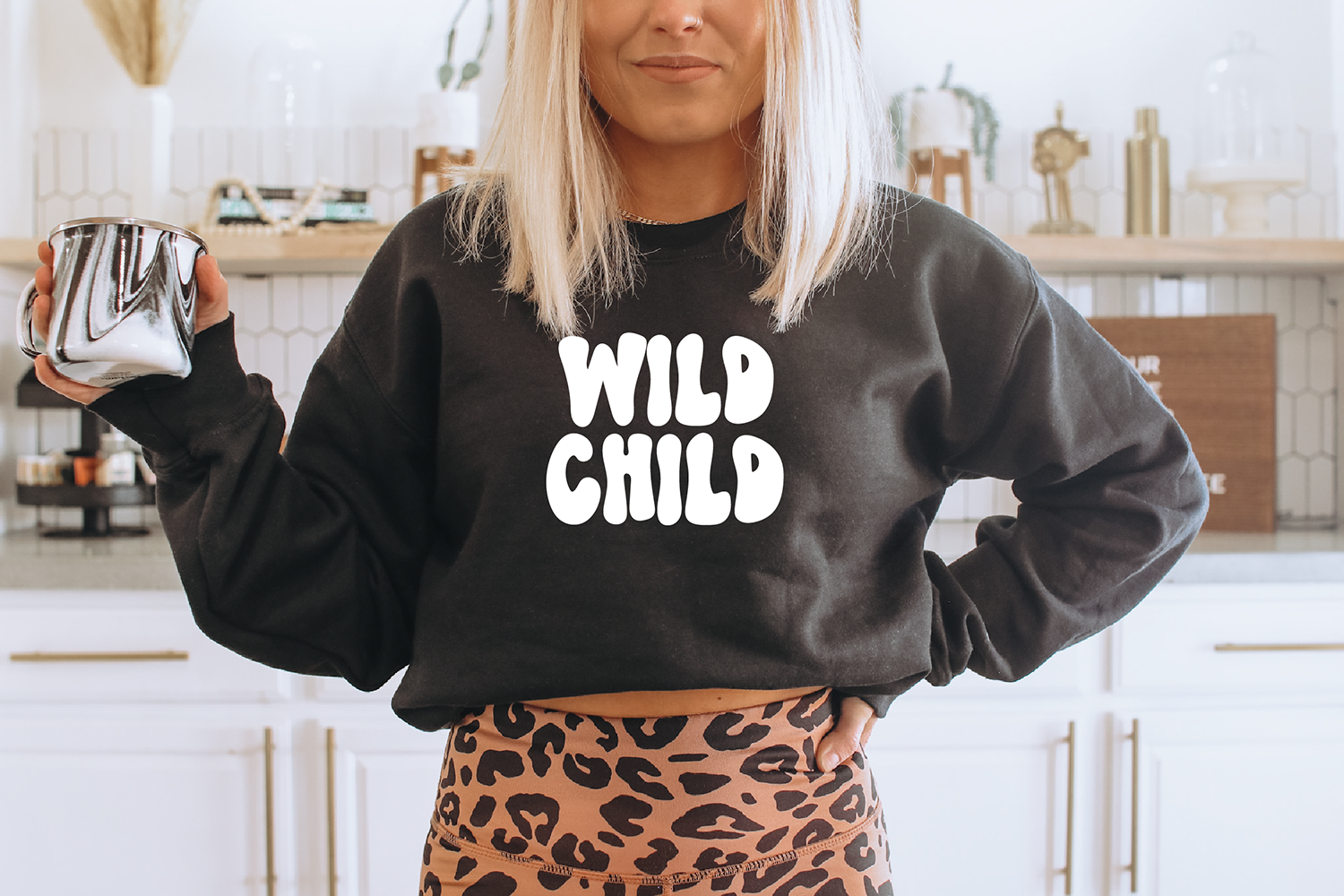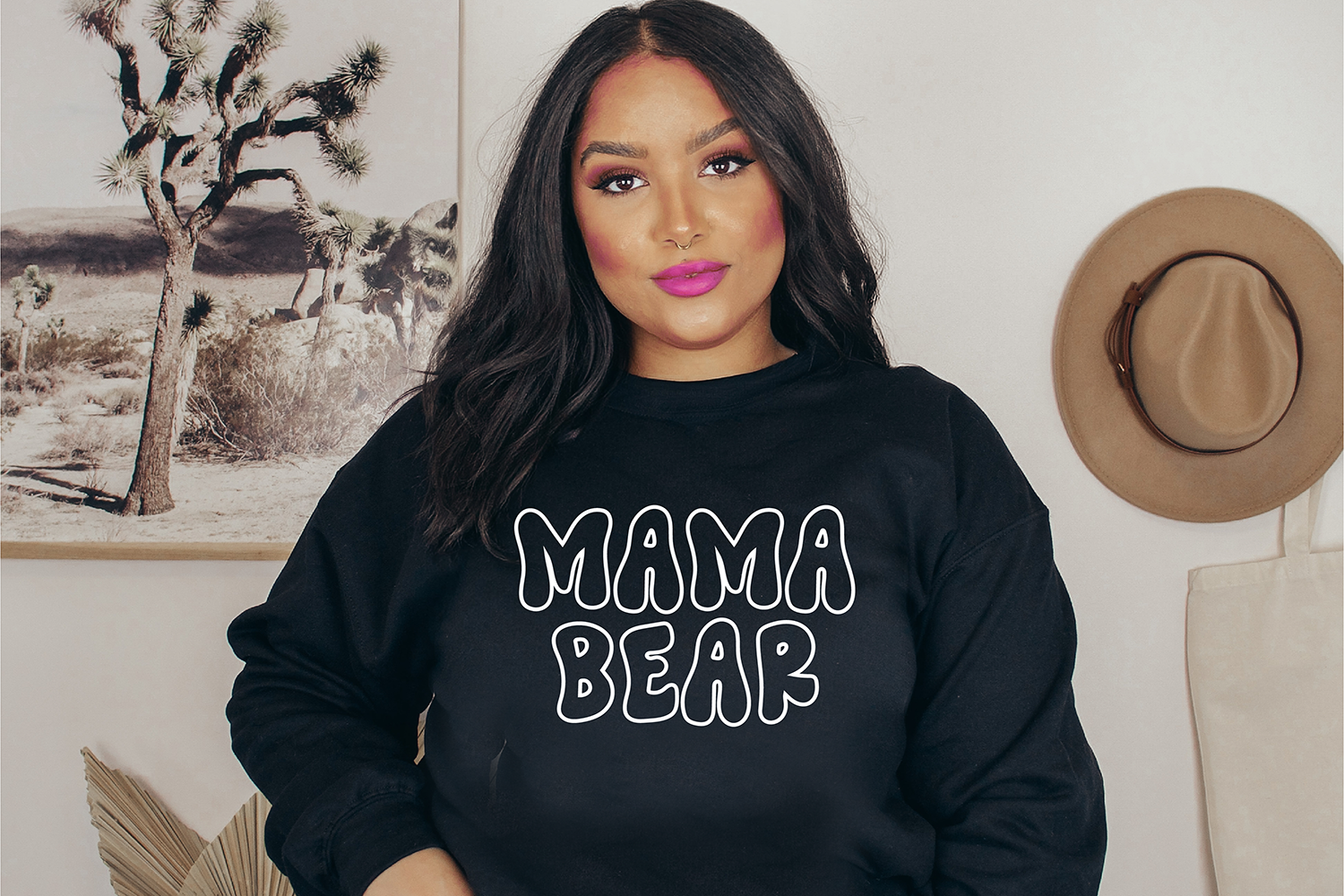
"Groovy Girls" a stylish retro font family. 2 versions included! Reg version and outline version.
This font is a trendy retro display font that is perfect for social media or crafty projects. Use if for branding, crafts for decor, invitations, and more!